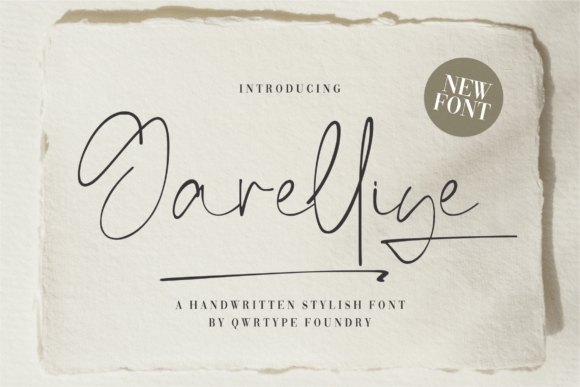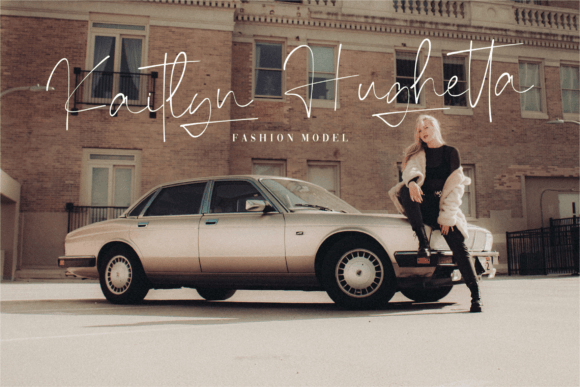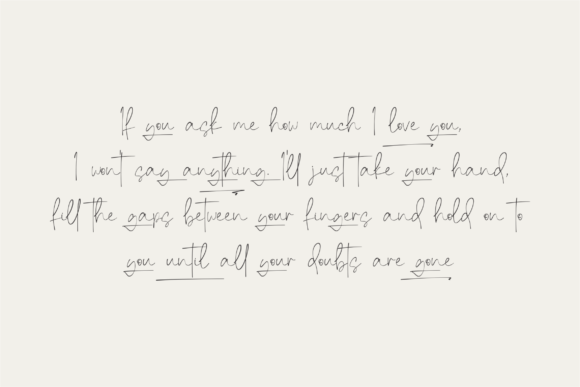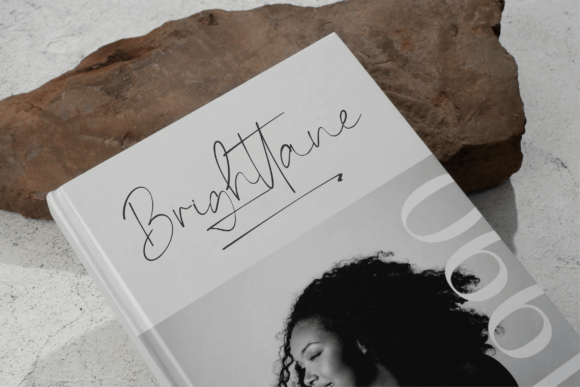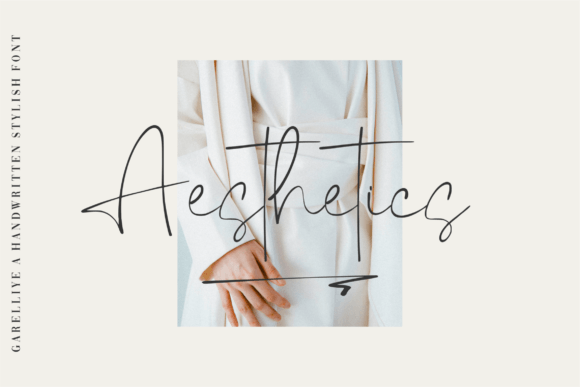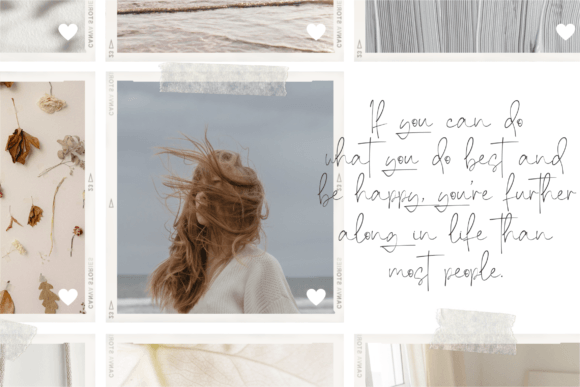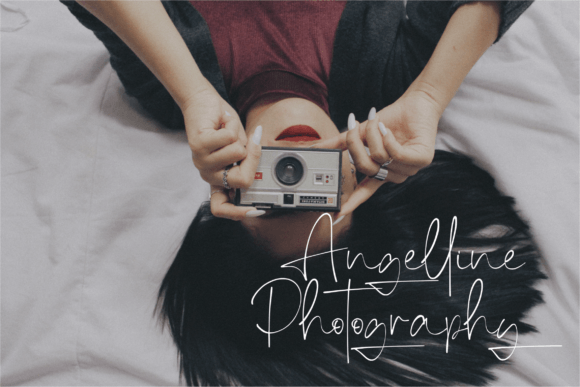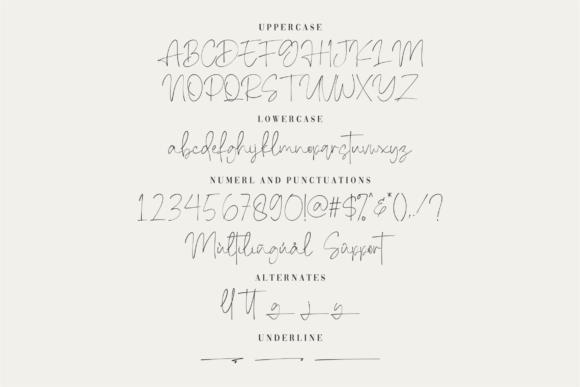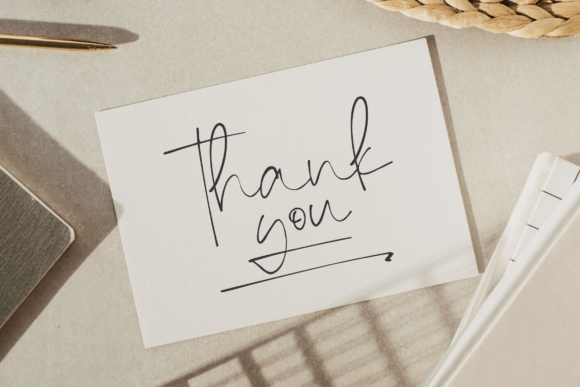
Garelliye Font
About Garelliye Font
Introducing Garelliye, a stylish handwritten font perfect for a variety of applications, including product packaging, branding projects, magazines, social media, weddings, or any context where you want to express words above the background. Masterfully designed to become a true favorite, this font has the potential to elevate each of your creative ideas to the highest level.
What sets Garelliye apart is its stylish and expressive design. The handwritten style adds a touch of personality and flair, making it well-suited for diverse design contexts. Imagine Garelliye enhancing your product packaging, where it adds a stylish and contemporary vibe to the presentation. Picture it in branding projects or on social media, where it introduces a unique and eye-catching element.
The versatility of Garelliye allows it to shine across different design applications. Whether used for print or digital media, this font adapts seamlessly, contributing to the visual appeal of your projects. Its stylish and handwritten charm makes it a font that brings a touch of elegance and modernity to your creative endeavors.
Visualize Garelliye becoming an essential part of your creative toolkit, taking your projects to the highest level of sophistication. Envision it in magazines, where its stylish design adds a dynamic and contemporary edge. Its versatility and expressive nature make Garelliye a font that brings a special and stylish touch to your designs.
In conclusion, Garelliye is not just a font; it’s a stylish and expressive design asset that enhances the beauty of your creative projects. Download it today and experience how it transforms your product packaging, branding, social media, and more into expressions of style and sophistication. Make Garelliye a cherished addition to your font collection, and let it be the key to unlocking a world of creativity and modern elegance in your designs!